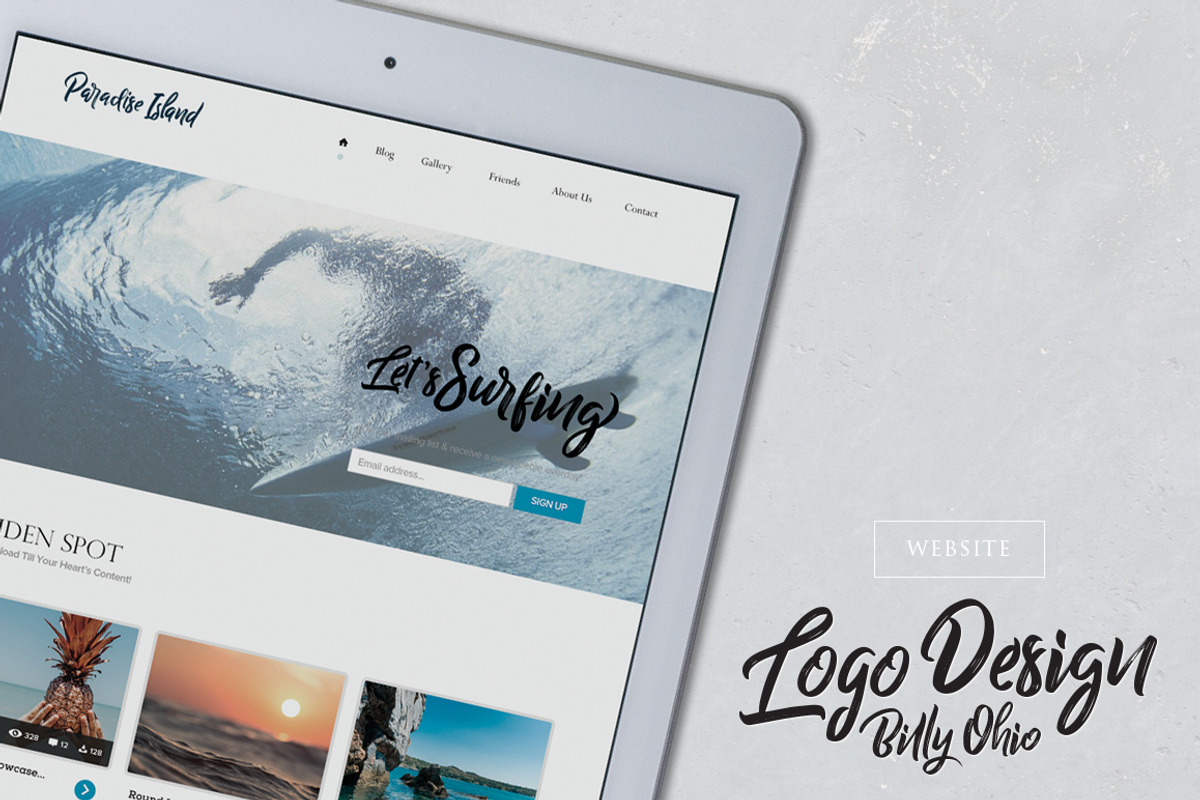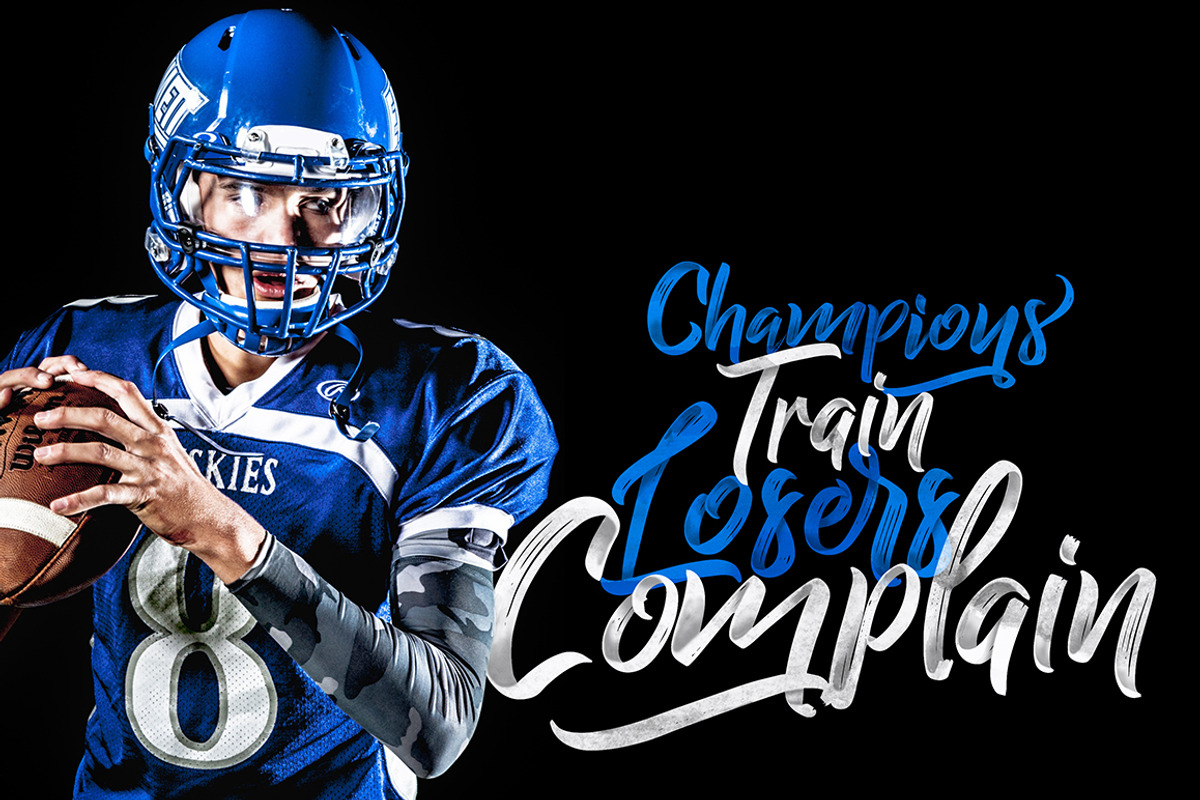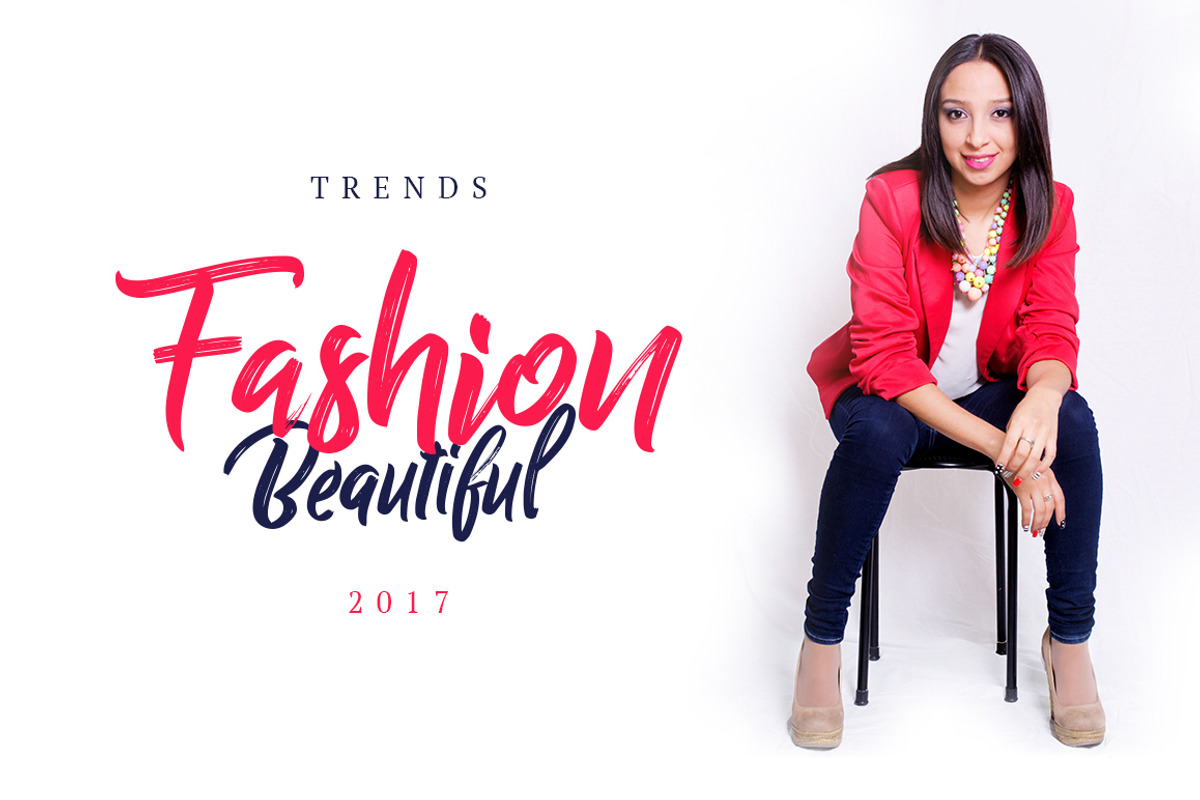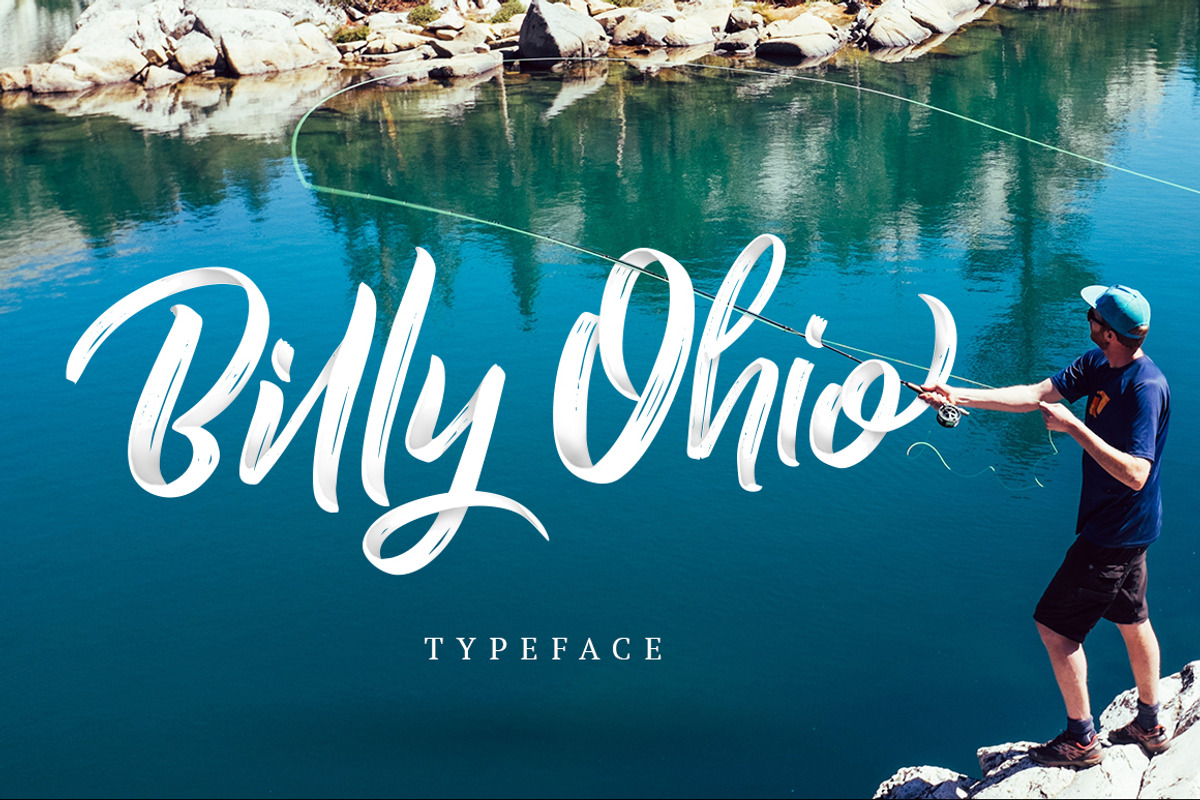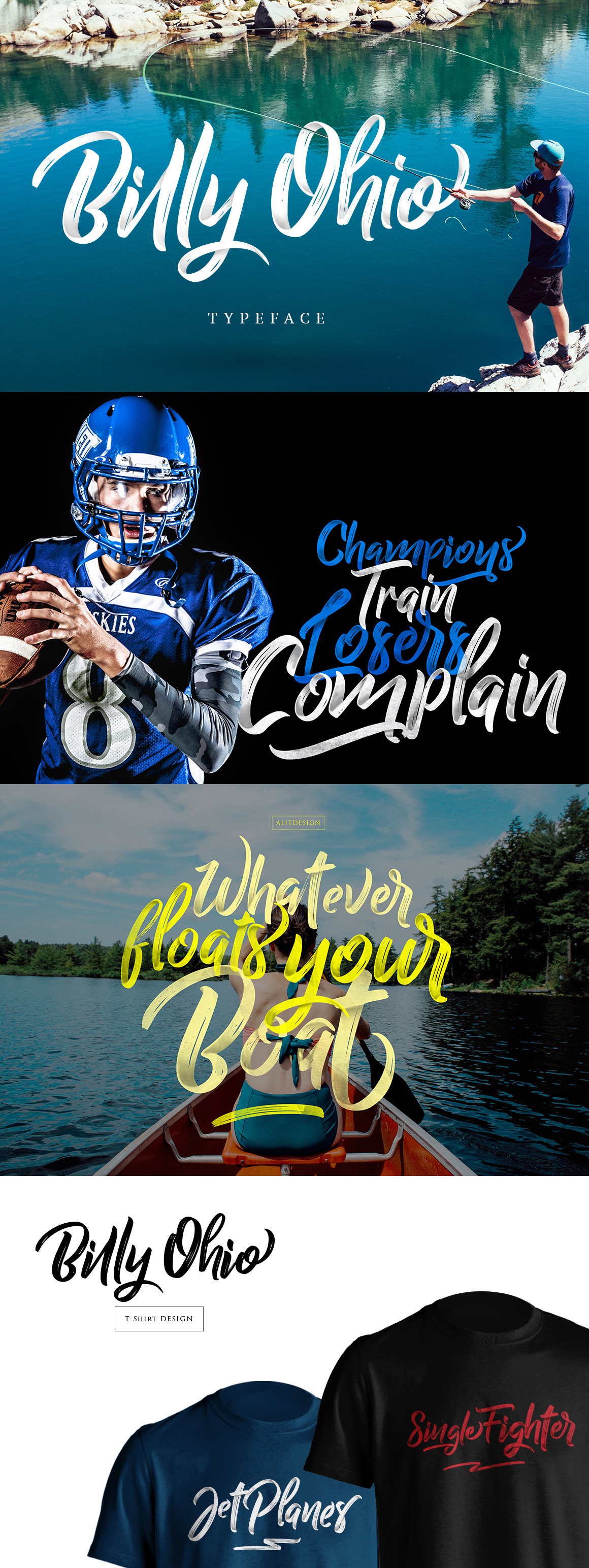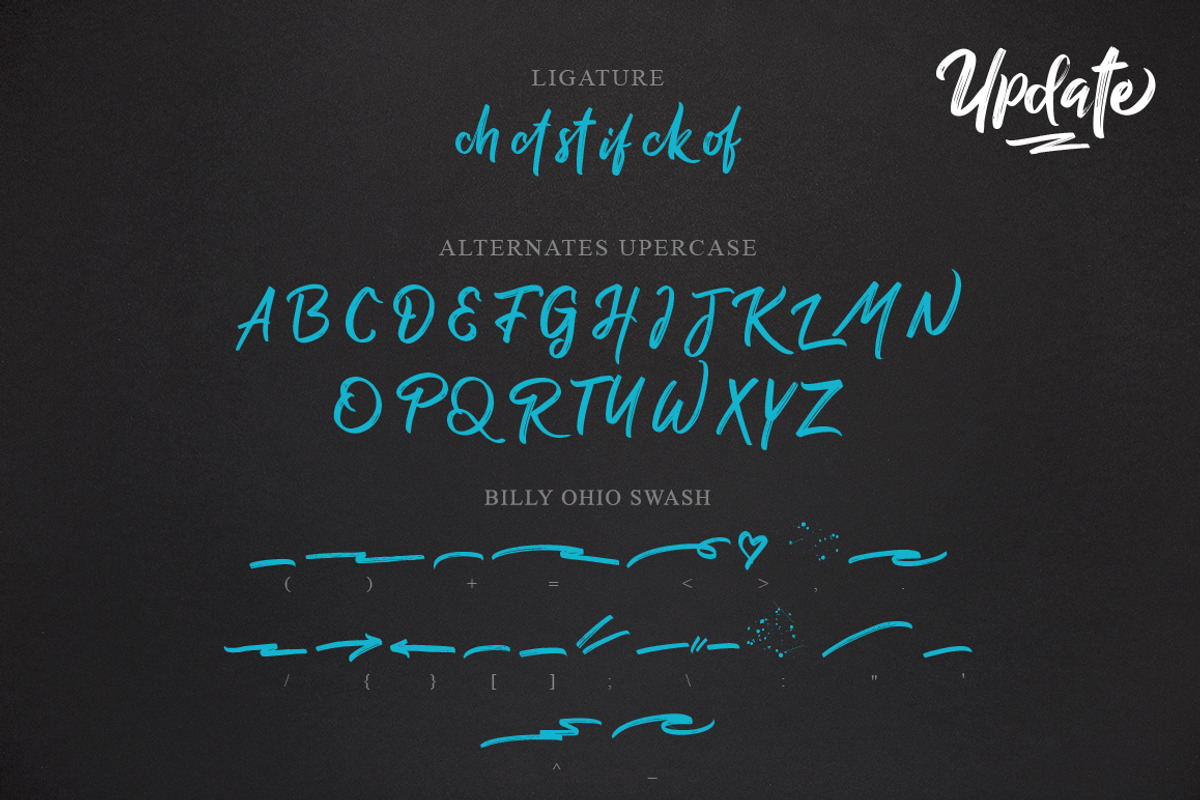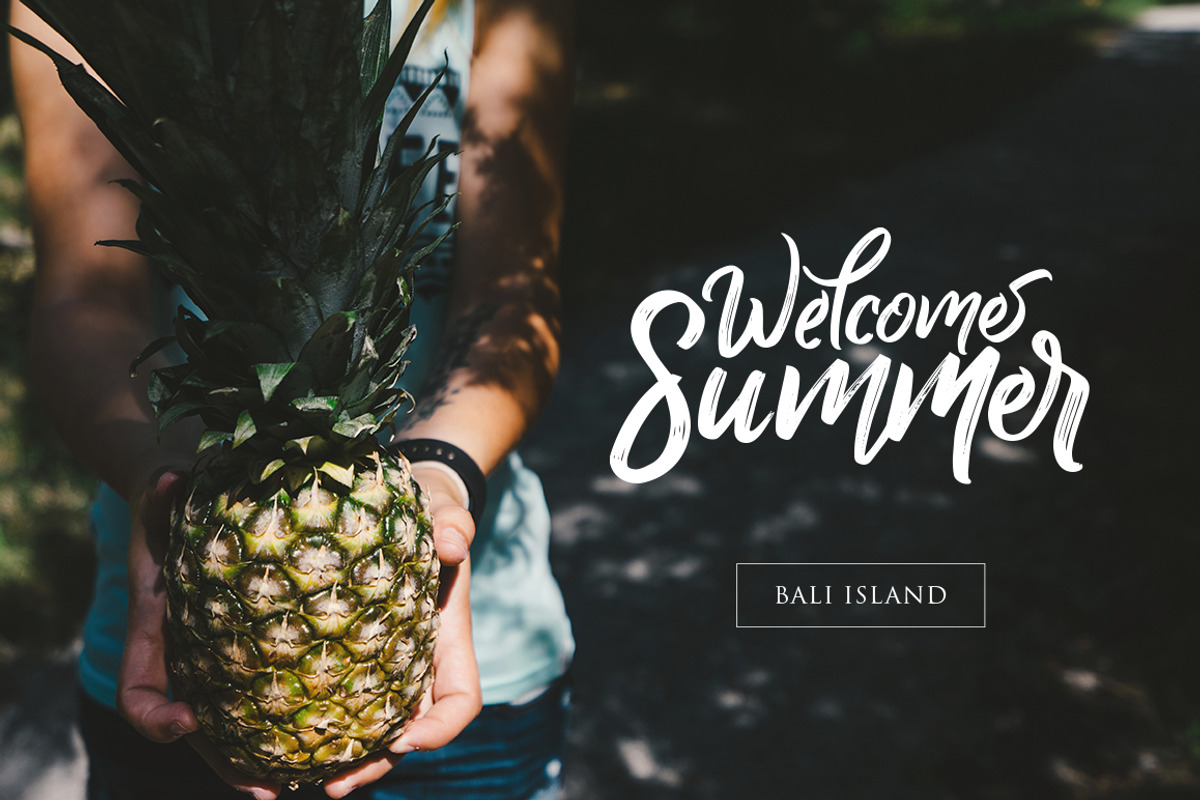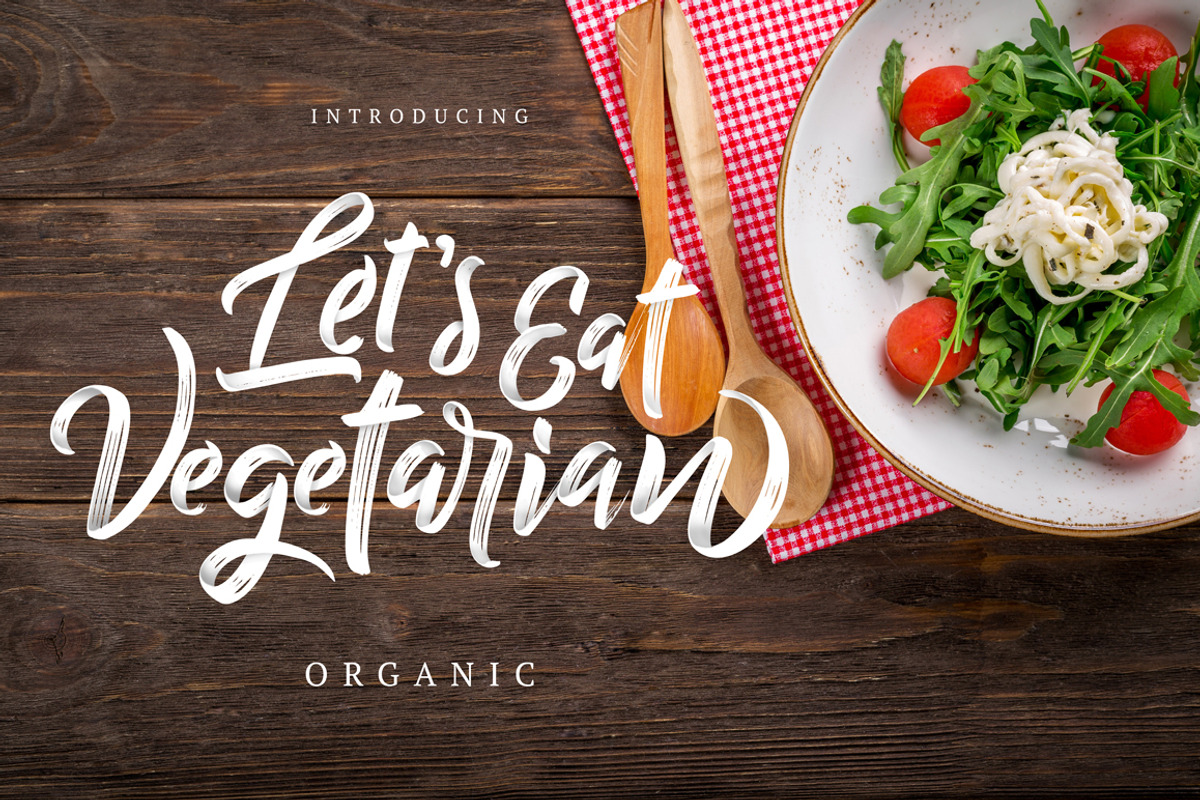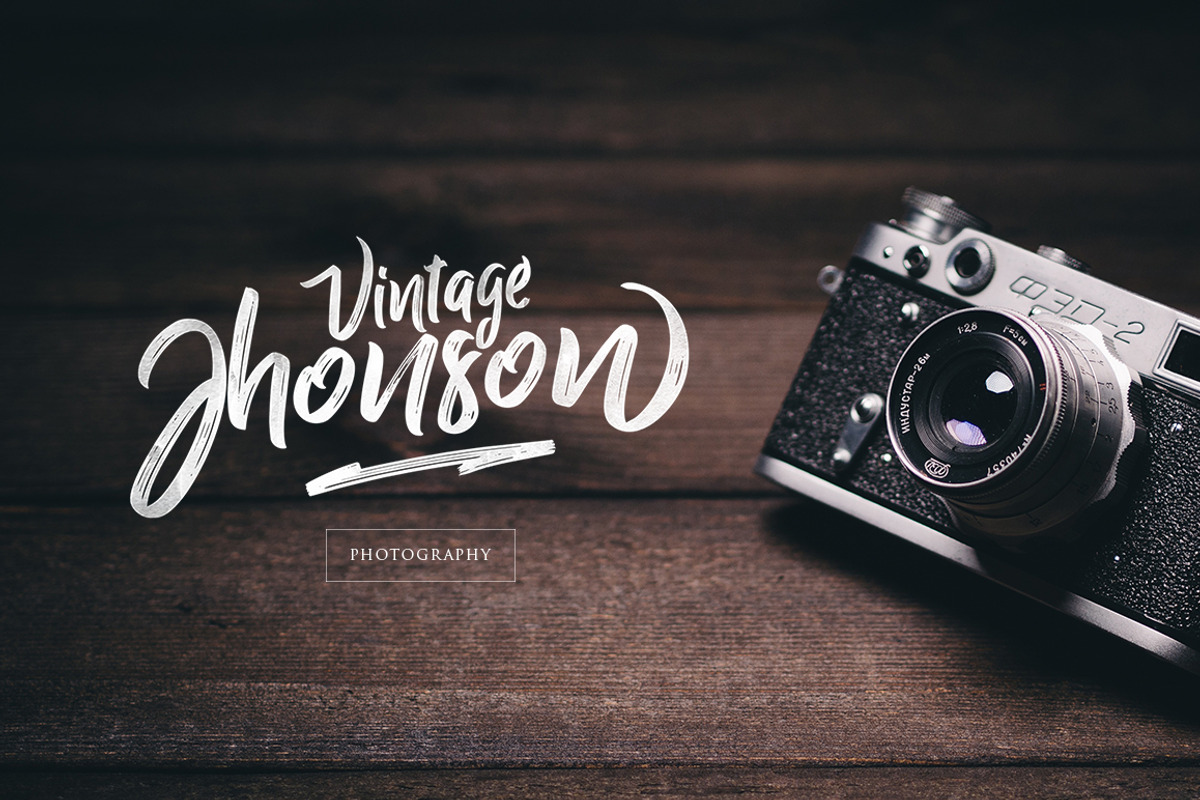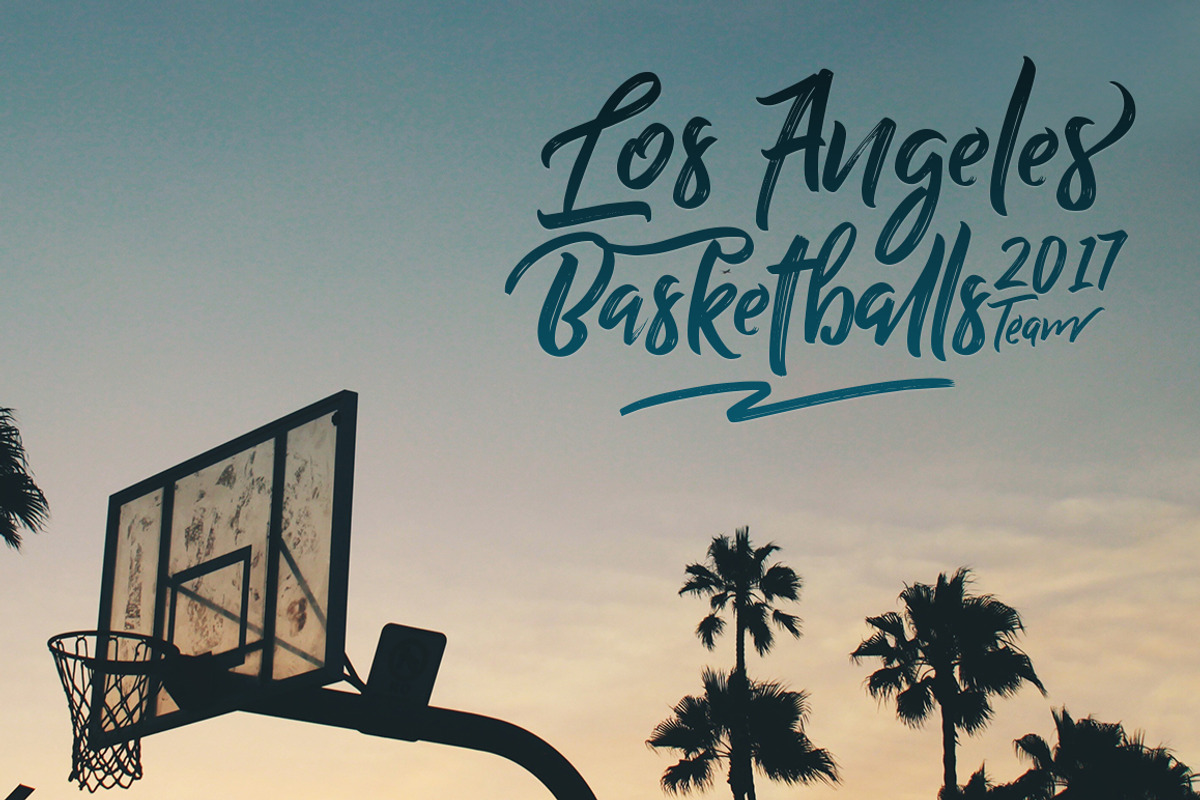
Billy Ohio Typeface
Introducing Billy Ohio Typeface which has a fast dry brush style. So it looks natural like a handmade. This font is best used for your design project that has the concept of fun, brave and sporty. Can also be applied to the design of a logotype, header website, make some lettering a quote, t-shirt design etc.
Billy Ohio has two font styles are similar but different, namely is Billy Ohio Dua but that you also get a Billy Ohio Swash of dry brush formatted like a using font.
Billy Ohio Typeface deserve to be one of your fonts collections, because it is unique and has many options of alternative glyphs.
- Character Set A-Z
- Standart Ligature
- SS01
- SS02